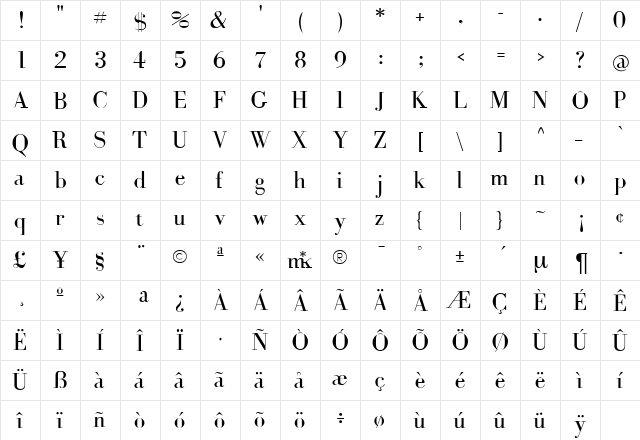
BohrDonni Regular
Design Context for BohrDonni Typeface
BohrDonni is a composed and adaptable typeface that performs quietly and consistently across a wide range of design contexts.